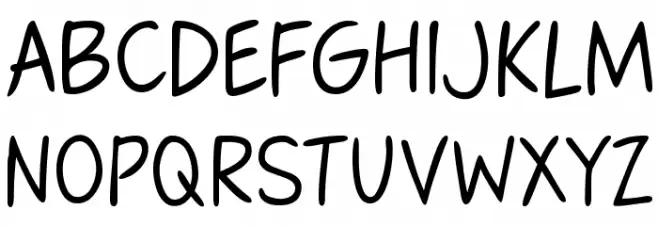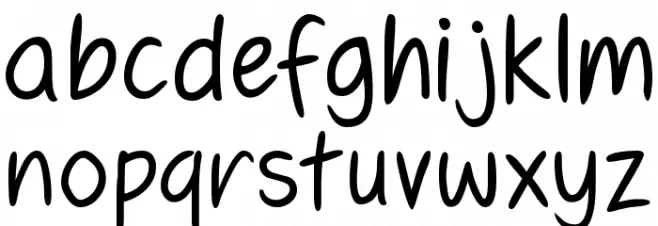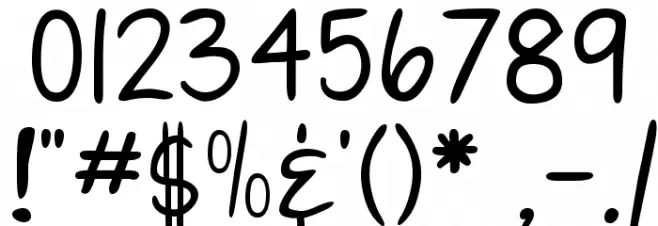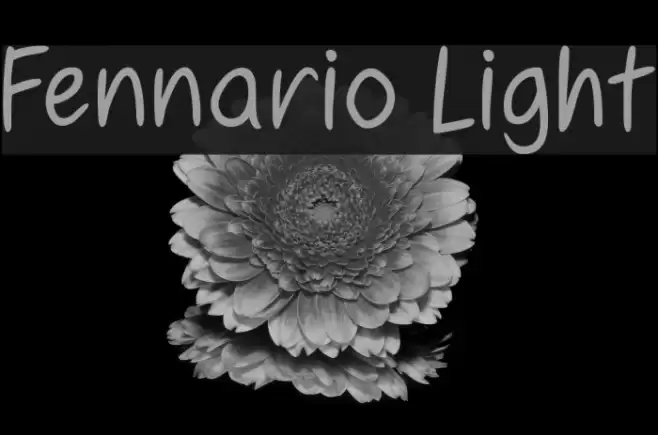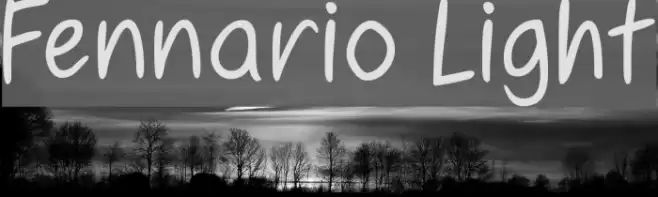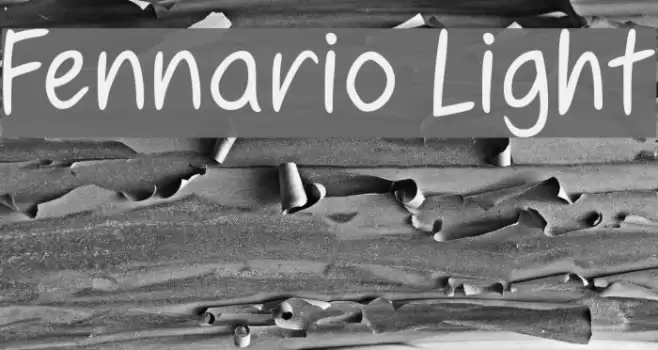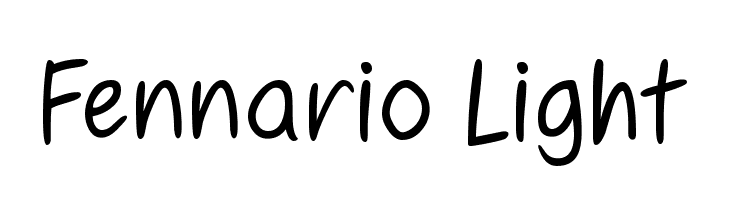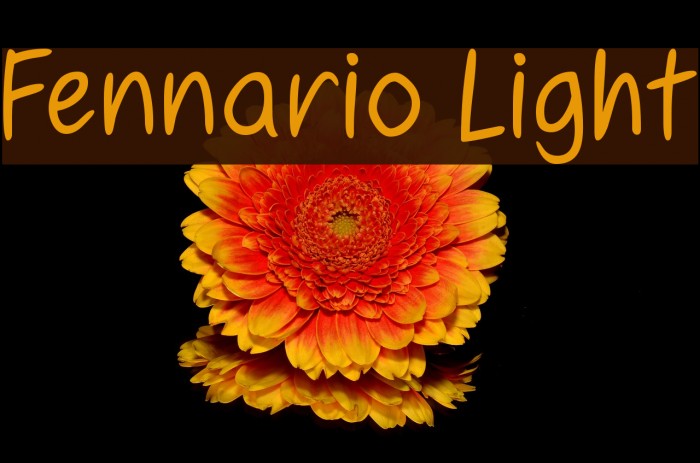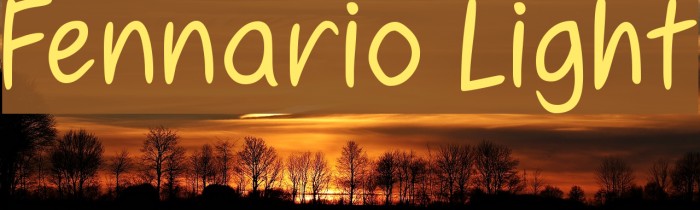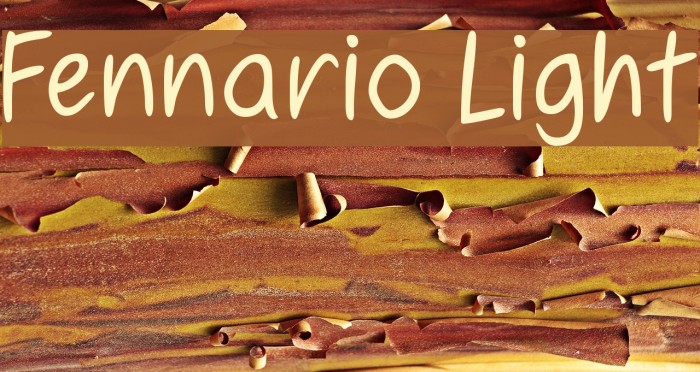
Fennario Light
This font features a playful and casual handwritten style, characterized by its smooth, rounded edges and consistent stroke width. The letters are slightly slanted, giving a dynamic and informal feel. Uppercase and lowercase characters maintain a harmonious balance, with a slight variation in height that adds to its charm. The numerals are clear and legible, matching the overall aesthetic of the alphabet. Special characters are well-integrated, ensuring versatility in various applications. This font exudes a friendly and approachable vibe, making it suitable for creative and informal projects.
A playful, casual handwritten font with smooth, rounded edges and a dynamic slant.
- Proposed Projects: Ideal for greeting cards, children's books, casual branding, and social media graphics.
- Weight: Light
- Overall Style: Casual
- Use Case: Headlines, Logos, Informal Text